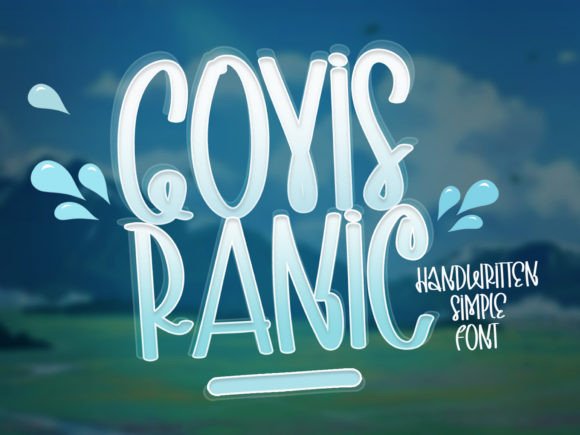
Introducing Govis Ranic Font - A Whimsical Handwritten Font That Will Unleash Your Creativity!
Welcome to the world of Govis Ranic, a captivating handwritten font that flawlessly combines fun and flair! Artnivarora.std's creative brilliance shines through in every letter, symbol, and punctuation mark, offering an irresistible font that is a true force to be reckoned with. Our font family belongs to the script genre, making it the perfect choice for personalizing a variety of designs and projects.
Immerse yourself in the whimsical charm of Govis Ranic, a font that knows no bounds. Its playful nature is an ideal fit for a diverse range of crafty concepts, from charming invitations to eye-catching posters and everything in between. Unleash your imagination, let your creativity flow freely, and see how Govis Ranic breathes life into your designs like never before!
Embrace the captivating world of Govis Ranic, and elevate your designs to new heights! Experience the joy of crafting unique and personalized messages, cards, posters, and invitations. Allow your creativity to flourish as you adorn your designs with a font that radiates happiness and cheer. Dive into the realm of Govis Ranic, where every letterform is a work of art, and every design a masterpiece!